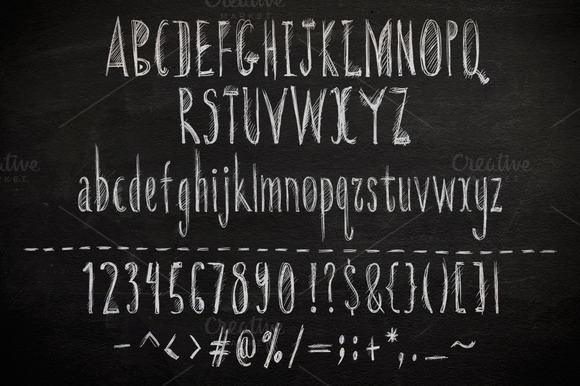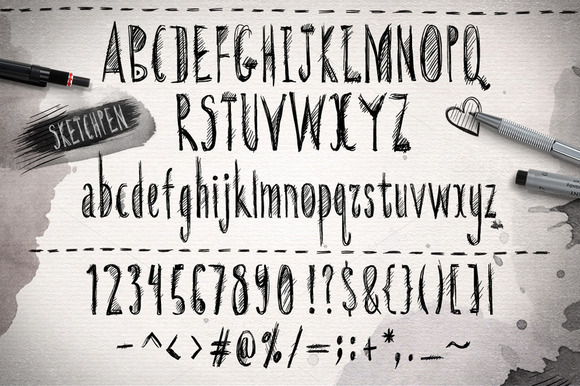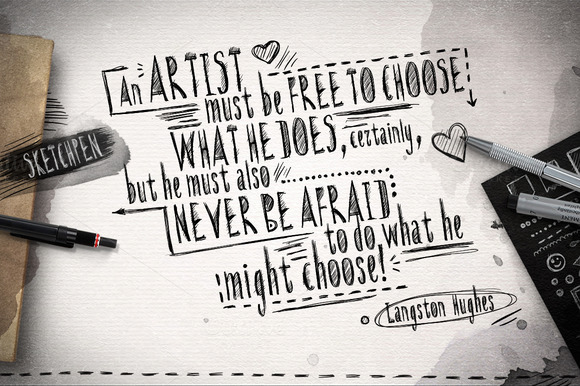
Sketchpen Typeface
SKETCHPEN hand drawnTypeface + vector extras sketch elements My hands and my tablet created my first font! ✎ “Sketchpen” typeface is a handmade font.
This is good for projects like a menu boards cafe, backgrounds, t-shirt, labels, flyers, posters or another design projects. Also this set includes more than 80 sketch vector extras in the same style as the font to help you build your typographical designs! The set of items presented in two versions – the black elements of the background paper and white on a chalkboard background.